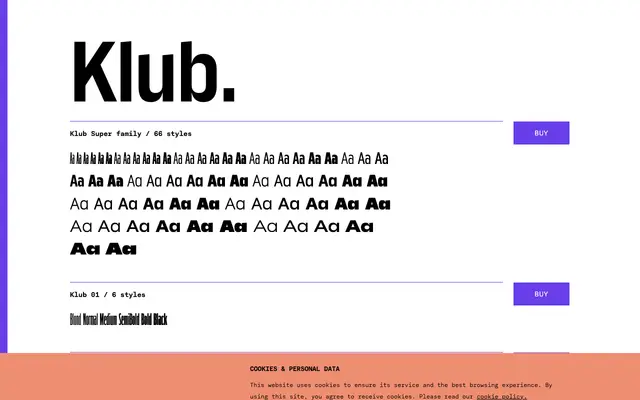
A super family of 66 styles spread across 11 numbered subfamilies, each sharing six weights from Blond to Black with a rich set of OpenType alternates.
Spanning 11 distinct subfamilies numbered 01 through 11, each offering six weights from Blond to Black, the family totals 66 styles. OpenType features are plentiful, including oldstyle and tabular figures, fractions, case-sensitive forms and a range of stylistic alternates for characters such as a, u, Q, R and G. The systematic structure makes it well suited to branding or editorial systems that require consistent variation across a single typographic voice.
The weight naming conventions (Blond, Normal, Medium, SemiBold, Bold, Black) and the systematic numbered subfamily structure suggest a rational, geometric sans-serif design built for versatility across display and text applications.